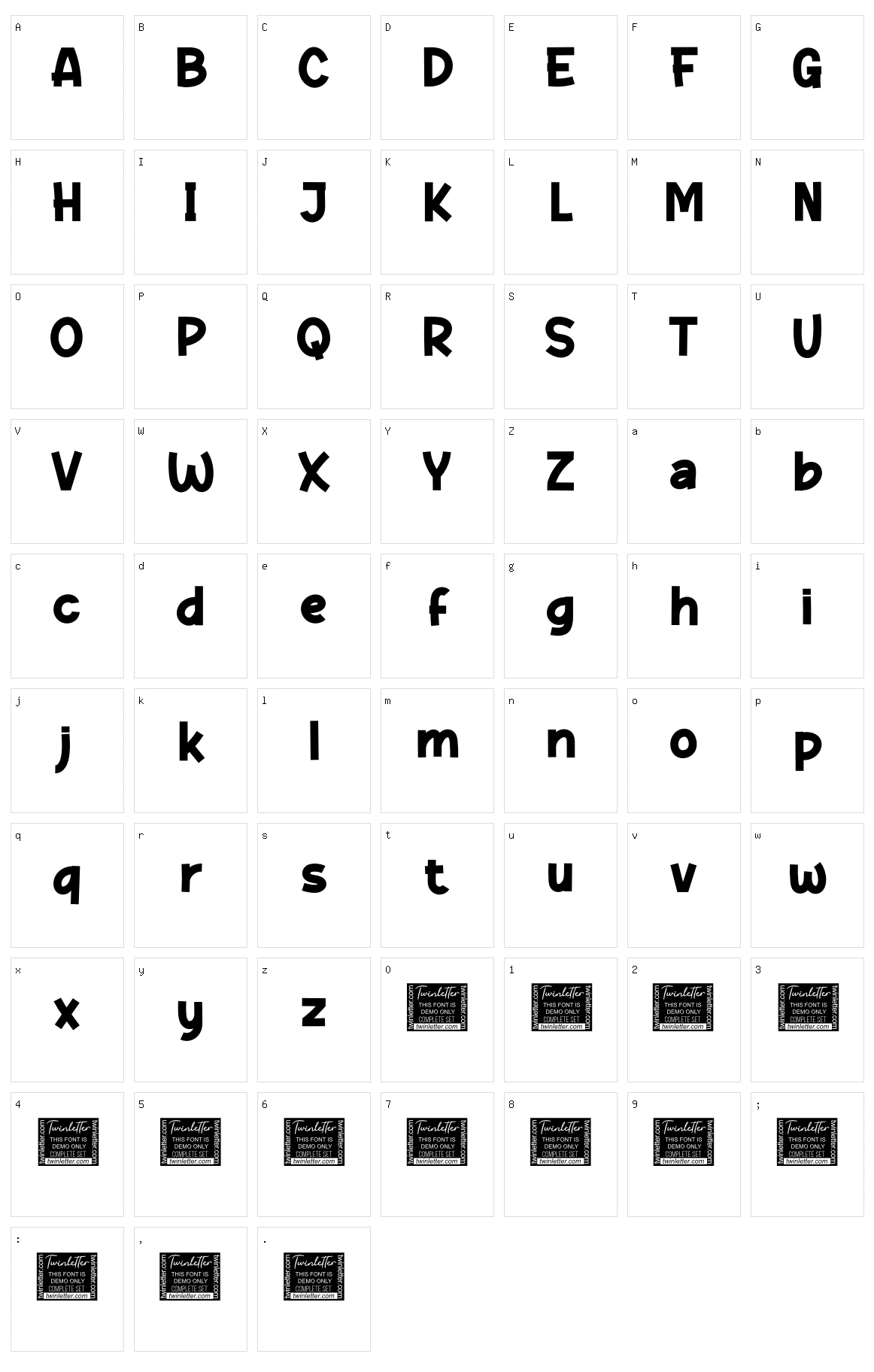
The free font Waghu is carefully designed by twinletter, showcasing a thoughtful balance of creativity and usability and falls under the Cartoon font style. When you download the ZIP file, it contains only 37.59 KB of font files, making it lightweight and quick to download. Please review the license details below to understand permitted usage and distribution rights. If license information is not available, we recommend using this font for personal projects only or contacting the author directly for commercial usage permissions.